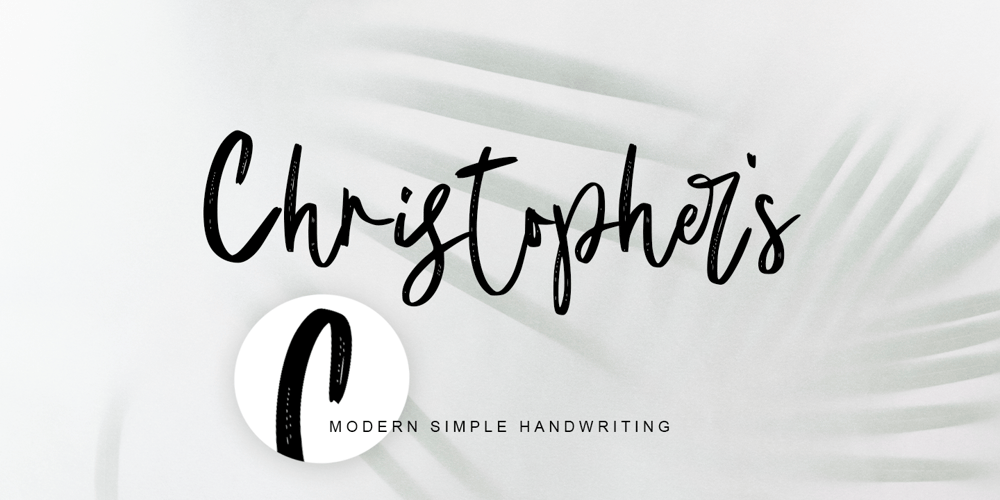
Christophers Handwriting Font Family was designed by Thomas Aradea and published by Letterara. Christophers Handwriting contains 1 styles and family package options. Christopher’s handwriting is an incredibly versatile and flowing handwritten brushed font. It will add a luxury spark to any design project that you wish to create! Fall in love with its incredibly versatile style and use it to create spectacular designs! This font is PUA encoded which means you can access all of the amazing glyphs and ligatures with ease!